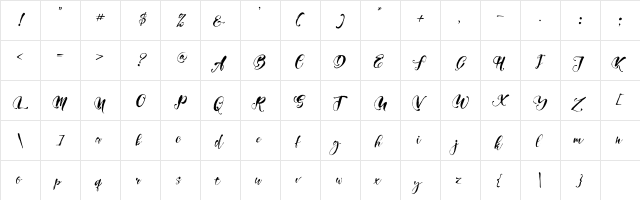
Girly Things Demo Version Italic
Design Context for Girly Things Demo Version Typeface
Girly Things Demo Version is a composed and adaptable typeface that performs quietly and consistently across a wide range of design contexts. The slanted form adds forward momentum and visual energy. The delicate stroke weight brings airiness and refinement to layouts.
Pro Tip: Try Girly Things Demo Version for annotation and caption copy alongside an upright companion — the contrast in angle creates a dynamic but ordered typographic system.